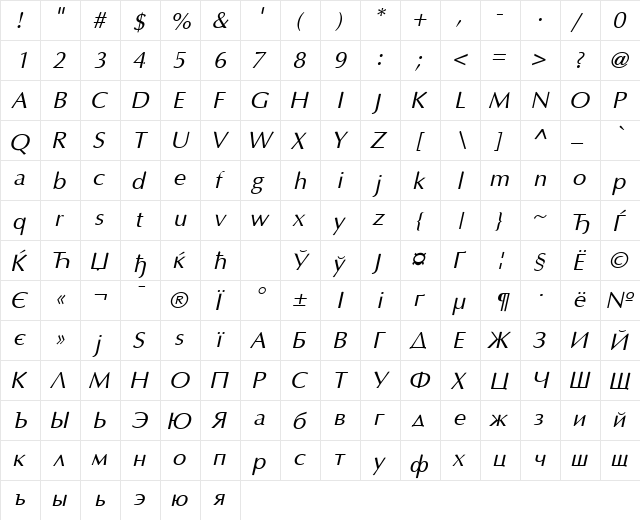
AGOpus Oblique
Design Context for AGOpus Typeface
AGOpus takes a measured approach to typography — its balanced proportions and neutral character make it a reliable workhorse for both digital and print work. Its italic angle brings a sense of urgency and motion to the letterforms.